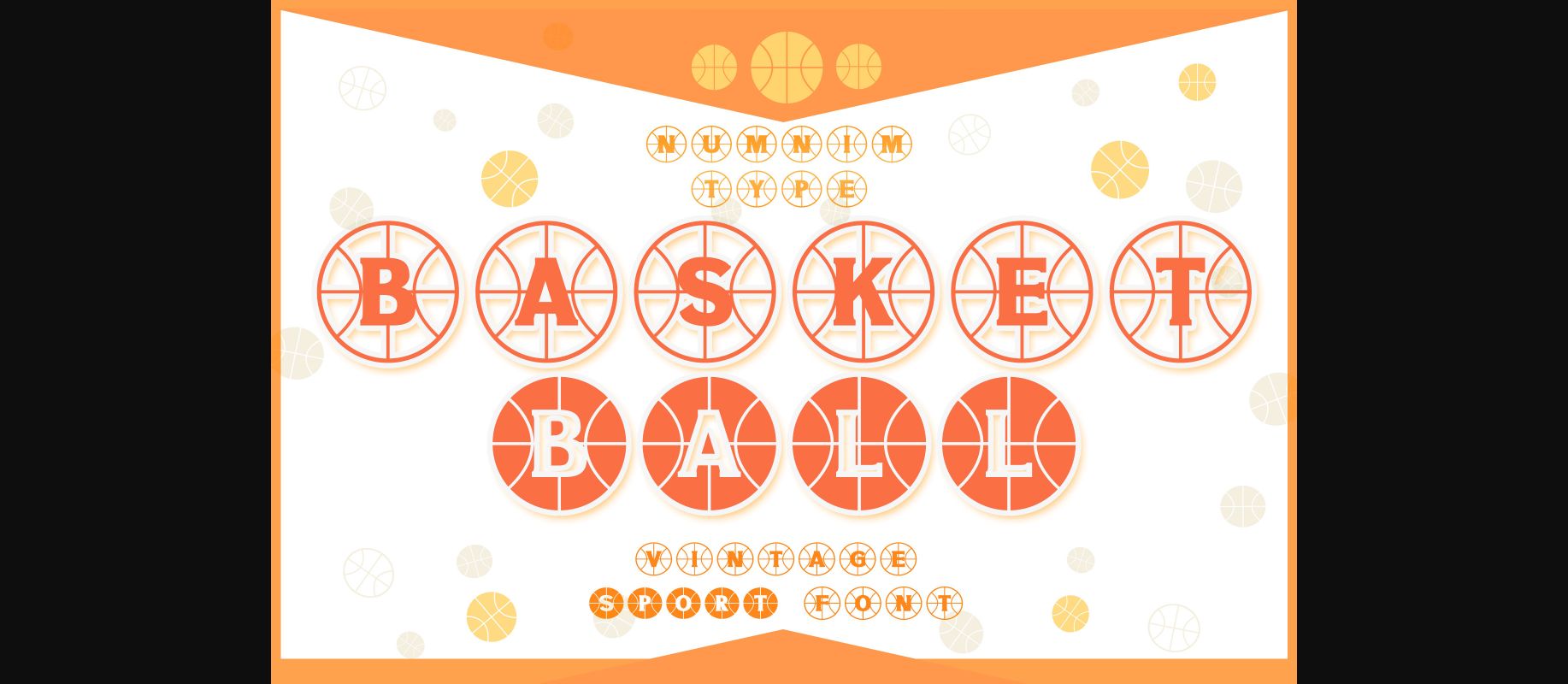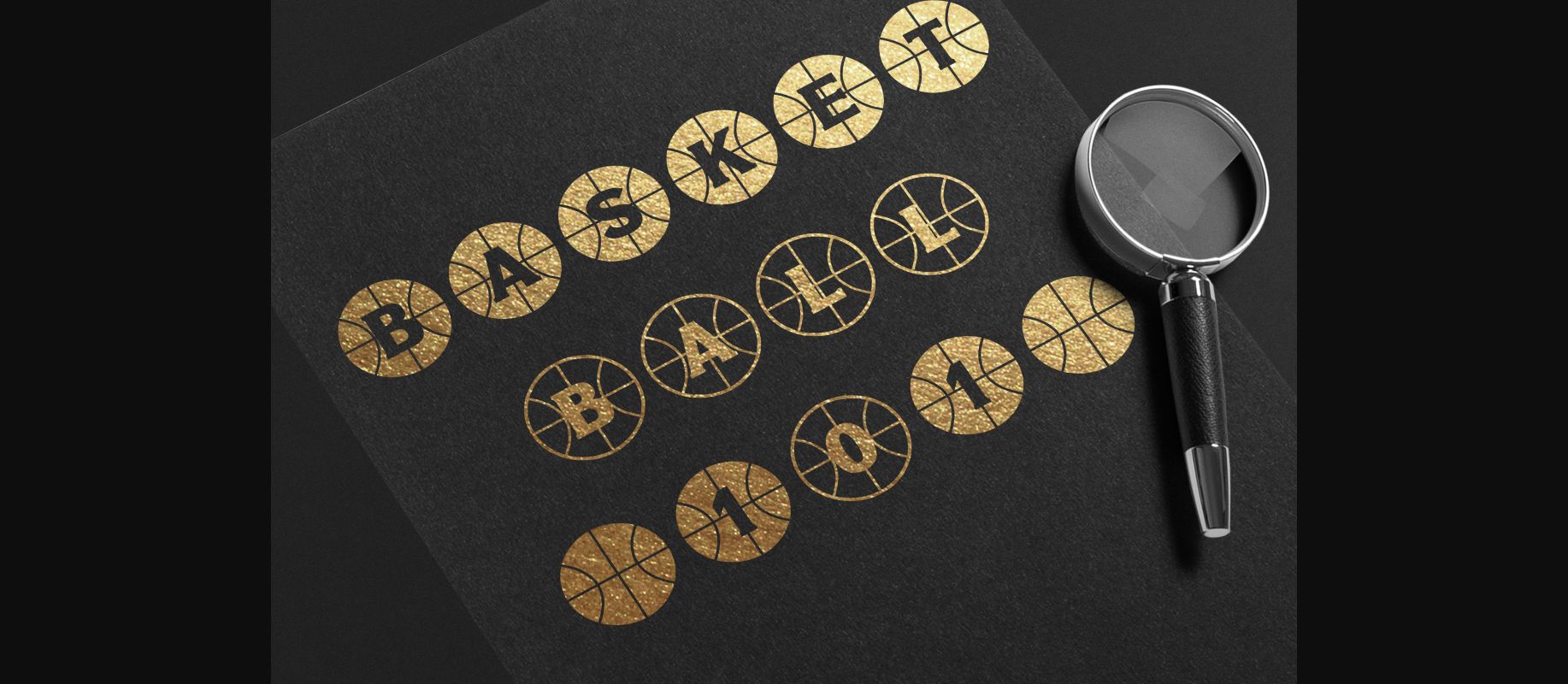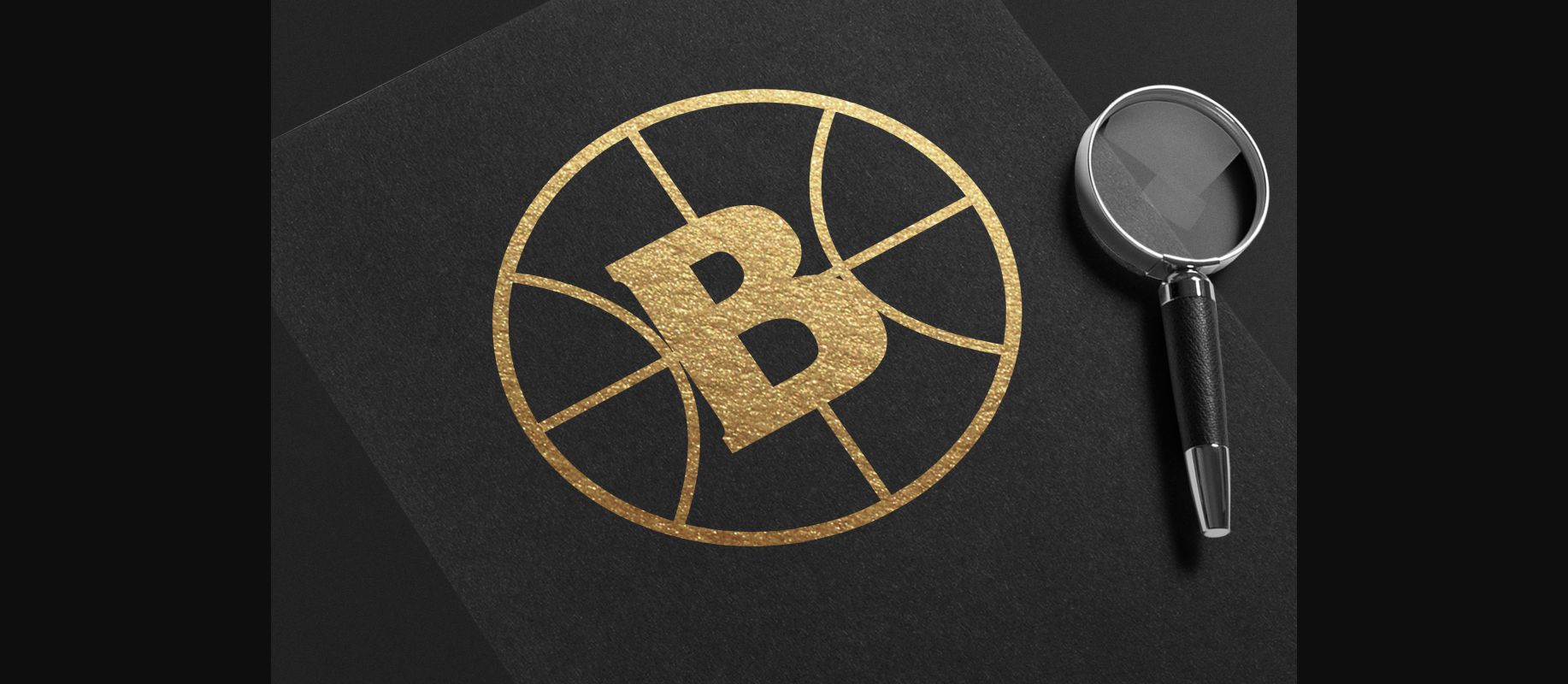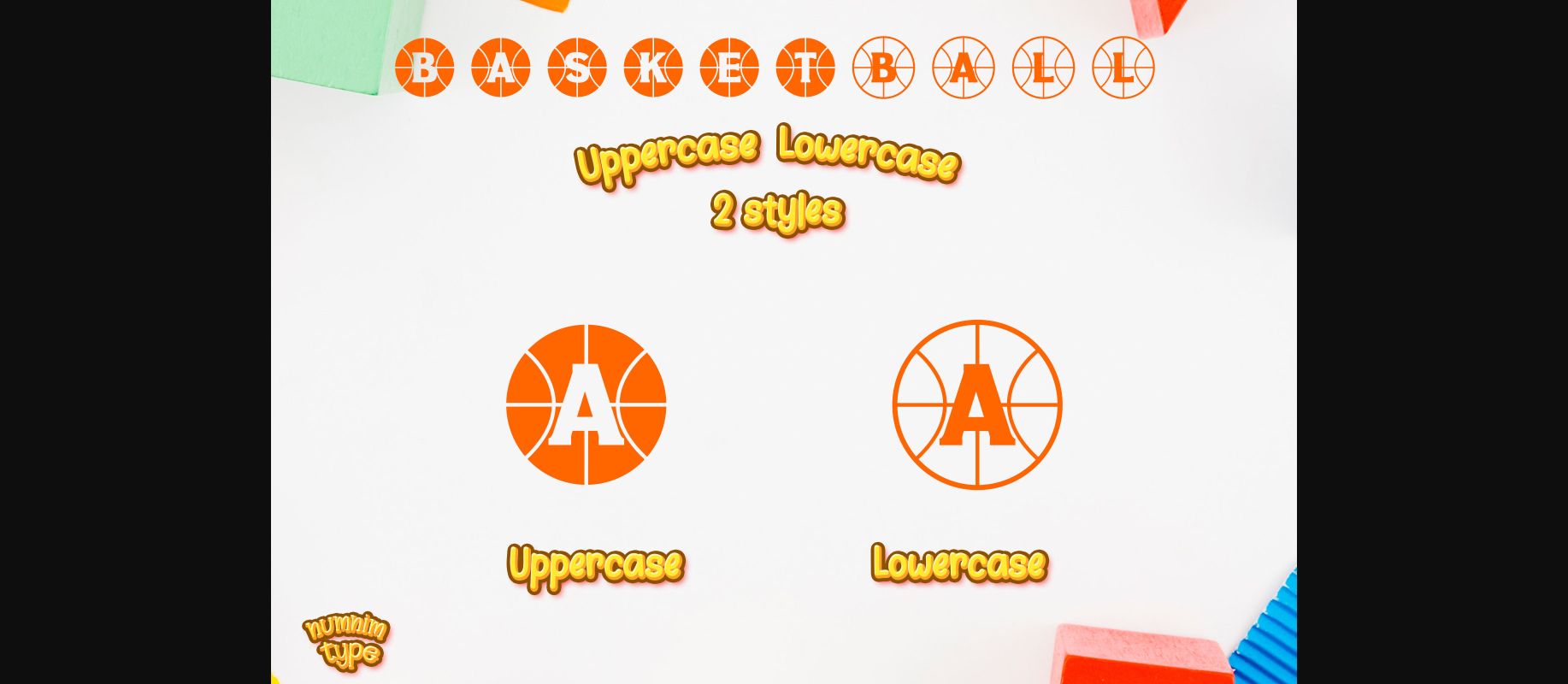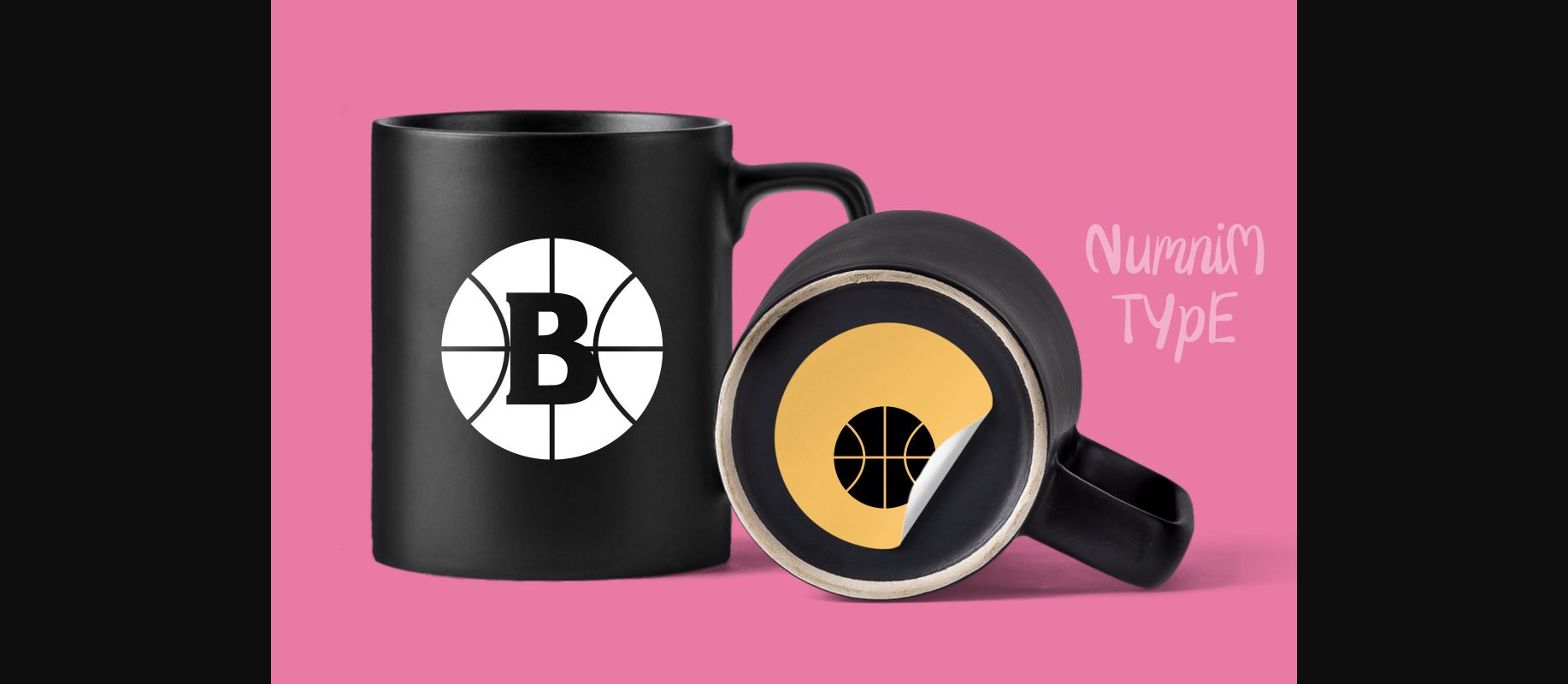
Basketball Font
About Basketball Font
Basketball is a cool and interestingly designed decorative font. Whether you use it for sports related designs, games or just any creation that requires a trendy touch, this font will be an amazing choice.